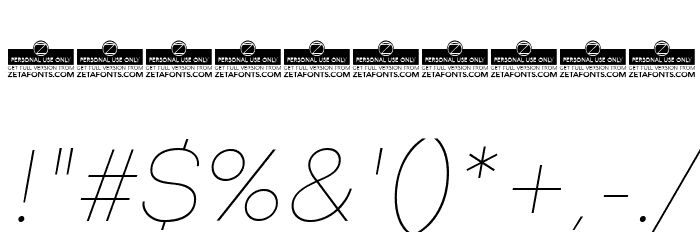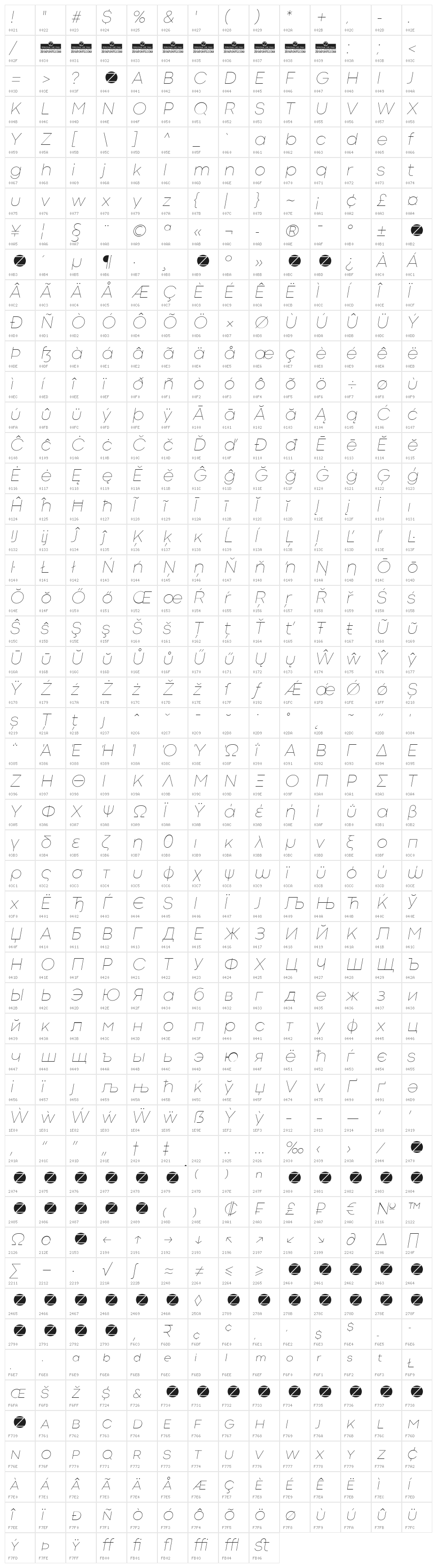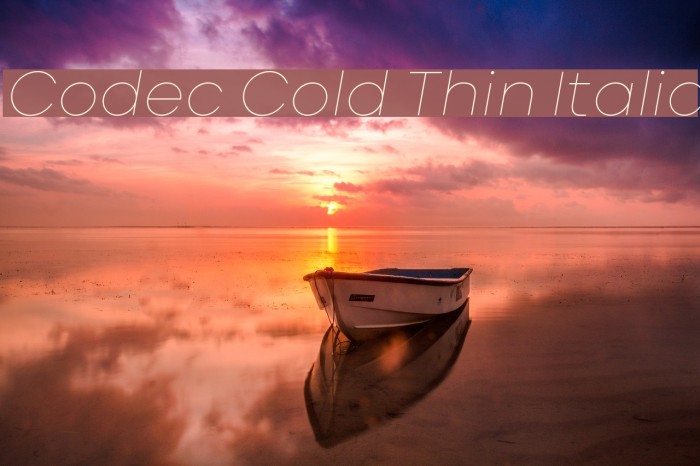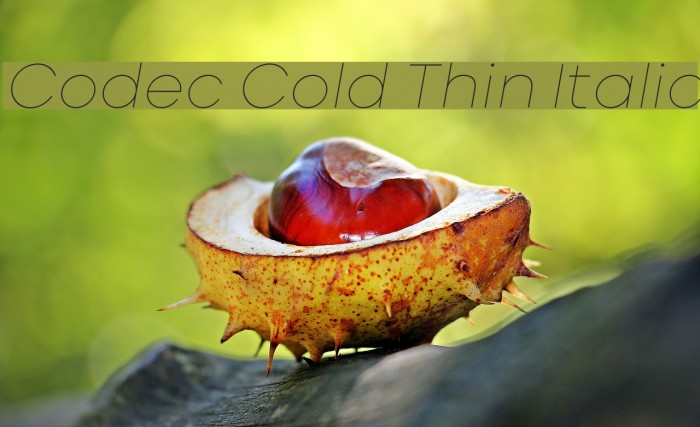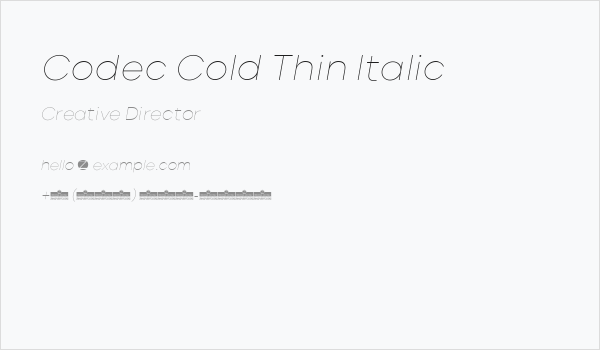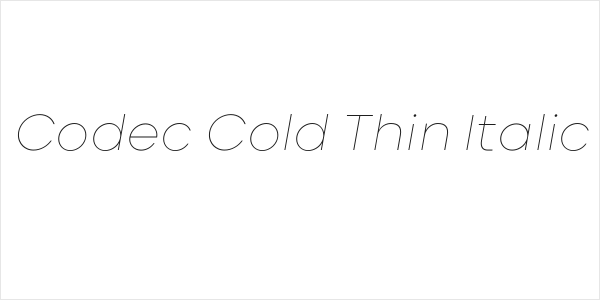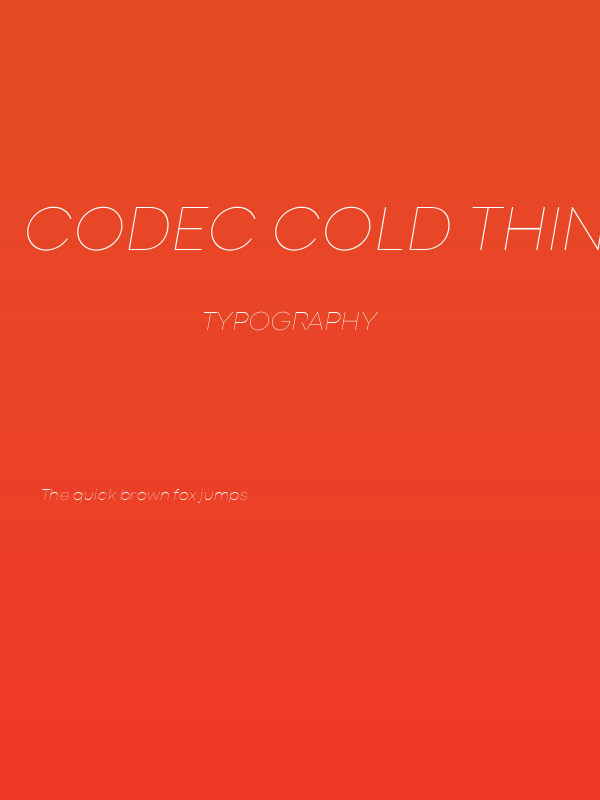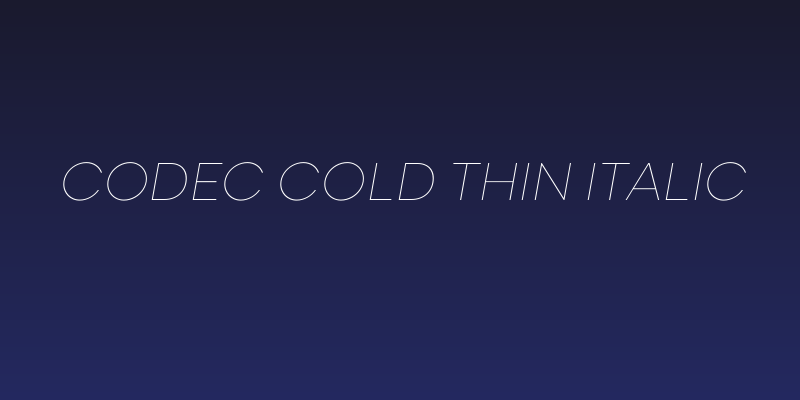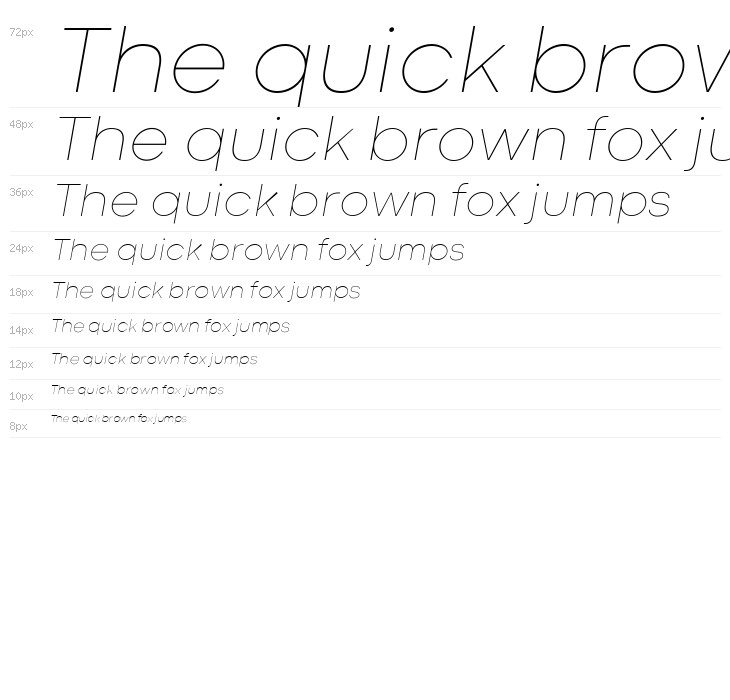
Codec Cold Thin Italic Font
Codec Cold Thin Italic Description
This font exhibits a sleek, modern design with a thin and elegant structure. The characters are slightly slanted, giving it an italicized appearance that adds a dynamic and sophisticated touch. The strokes are consistently thin, contributing to a minimalist aesthetic. The uppercase and lowercase letters maintain a uniform style, with smooth curves and clean lines. The numerals and special characters follow the same design principles, ensuring a cohesive look across all glyphs. This font is ideal for projects that require a contemporary and refined feel.
| Use Case | Headlines, Logos, Editorial design |
| Proposed Projects | Ideal for modern branding, fashion magazines, elegant invitations, and minimalist web design. |